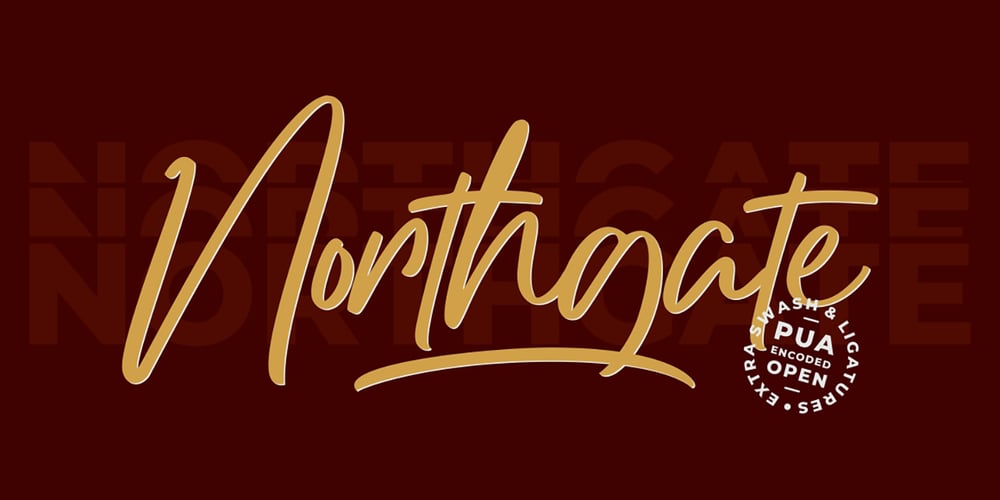
Northgate Font Family was designed by Virgiawan Listanto and published by Stringlabs Creative Studio. Northgate contains 1 styles and family package options. Northgate delivers an incredibly bold and unique font experience. This script will make a great addition to any crafter’s toolbox. Northgate Path is a flowing and elegant handwritten font, created with the help of a brush pen. Get inspired by its unique and beautiful style and add it to your favorite designs!